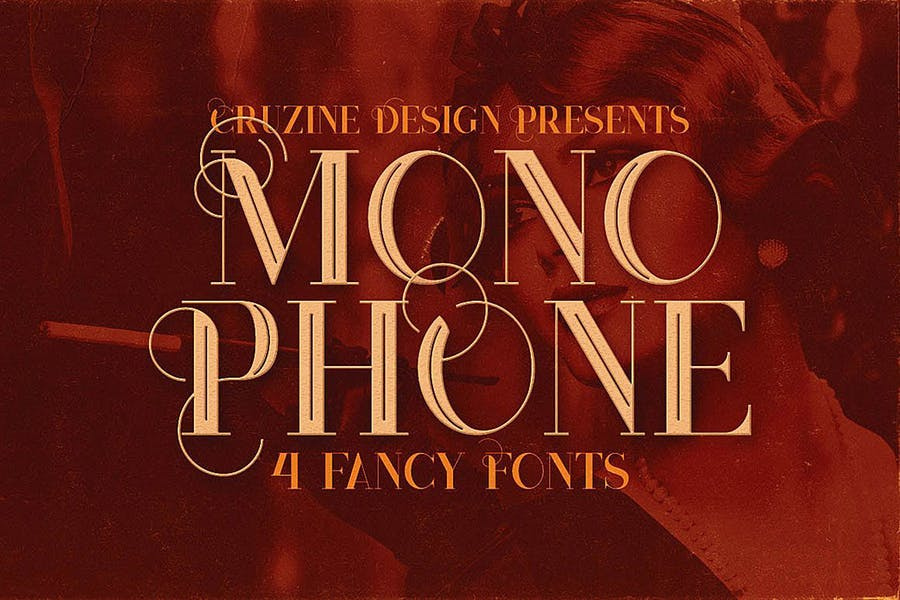
Monophone - Fancy Font
Monophone - Fancy Font is perfect for vintage recording studios, retro music venues, nostalgic audio equipment branding, classic radio station materials, antique telecommunications companies, vintage phonograph retailers, historical communication museums, sophisticated audiophile brands, elegant music publications, and distinguished sound technology presentations.
Monophone - Fancy Font creates excitement because it embodies the sophisticated elegance and technological marvel of early telecommunications with its ornate letterforms and vintage communication-inspired character design. The font's refined curves and classical aesthetic instantly convey technological sophistication and historical innovation, making any brand appear distinguished and authentically connected to communication heritage. Its carefully crafted telecommunication details and fancy character create an immediate sense of vintage sophistication that captivates audiences seeking authentic vintage experiences, historical quality, and products that celebrate the transformative beauty of early communication technology and elegant design traditions.
The Monophone - Fancy Font family includes multiple weights and styles: Regular, Bold, Light, Medium, Italic, Condensed, Extended, Ornate, Elegant, and Vintage versions. Each variant maintains the font's signature telecommunication character while offering different levels of fancy styling and historical authenticity suitable for various vintage technology and elegant design applications.